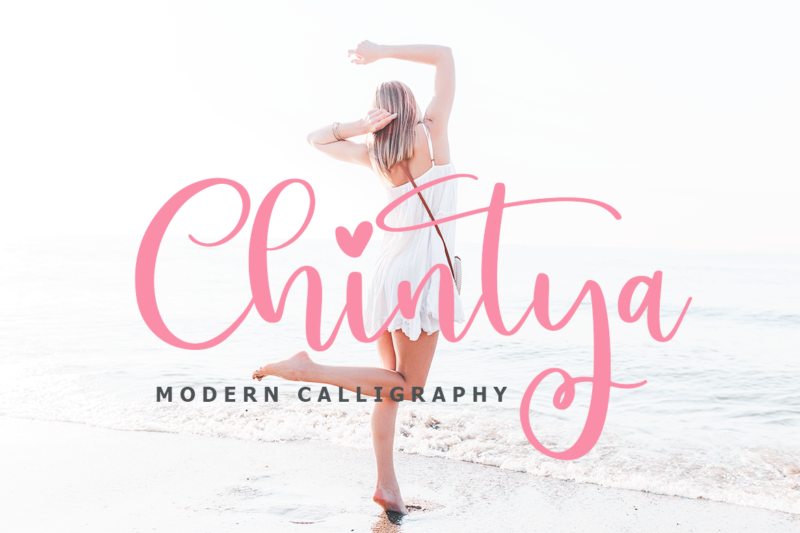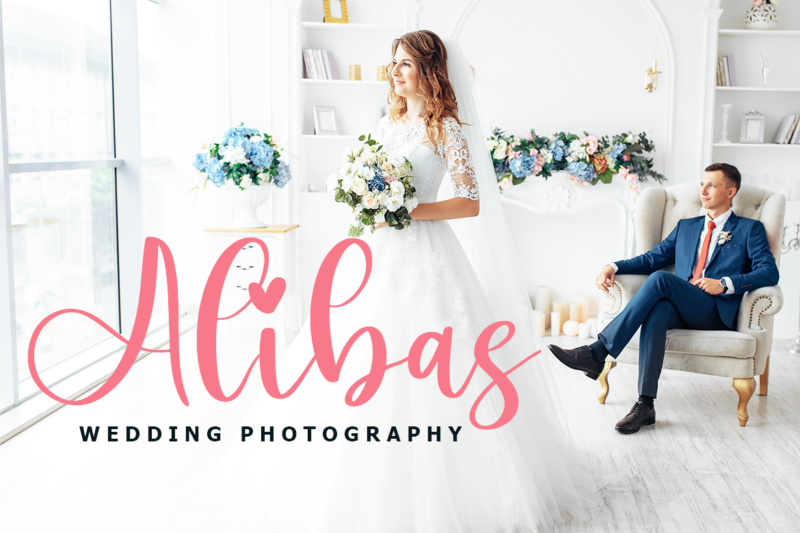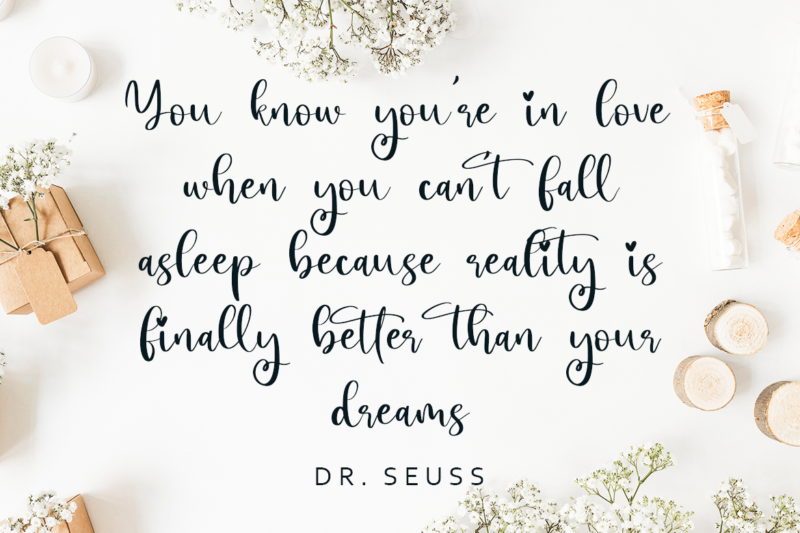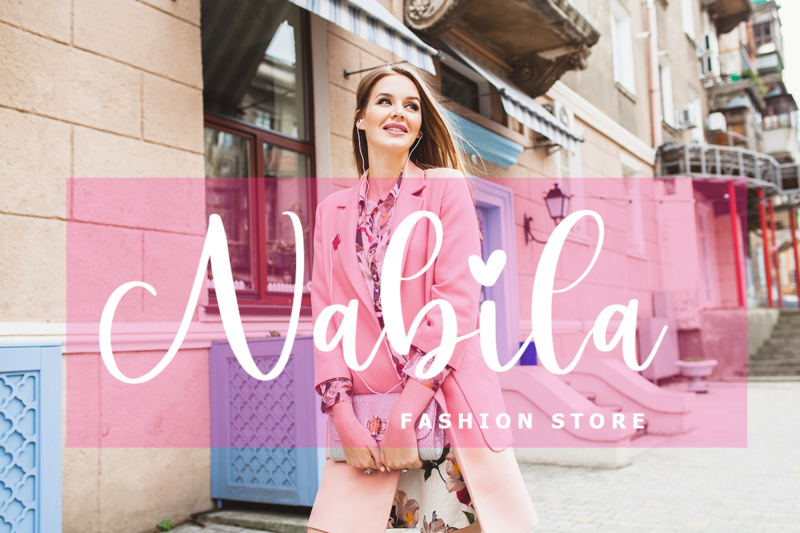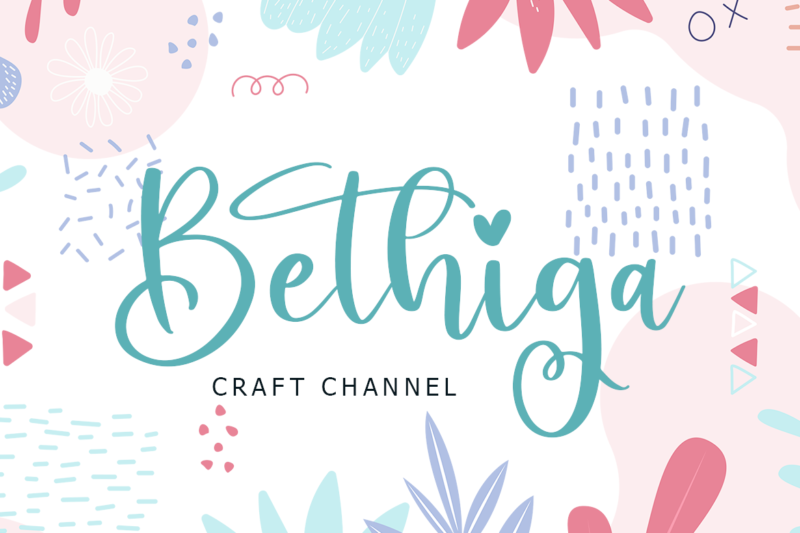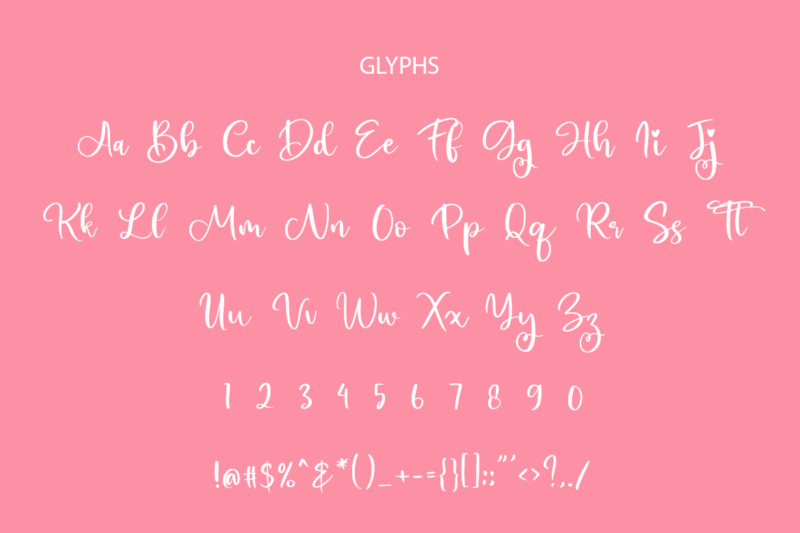
Chintya Font
Chintya is an incredibly distinct, delicate and timeless handwritten font.
It looks stunning on wedding invitations, thank you cards, quotes, greeting cards, logos, business cards and every other design which needs a handwritten touch.
- Tons of glyphs
- Ligature